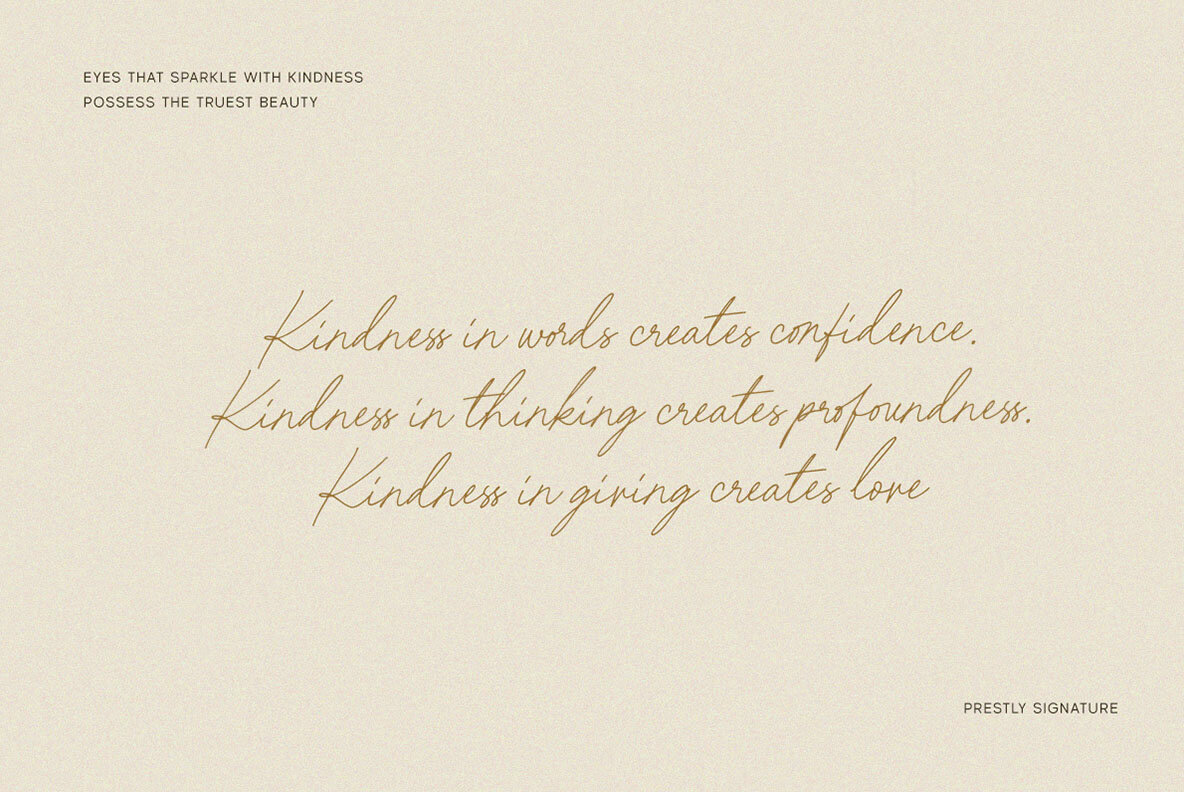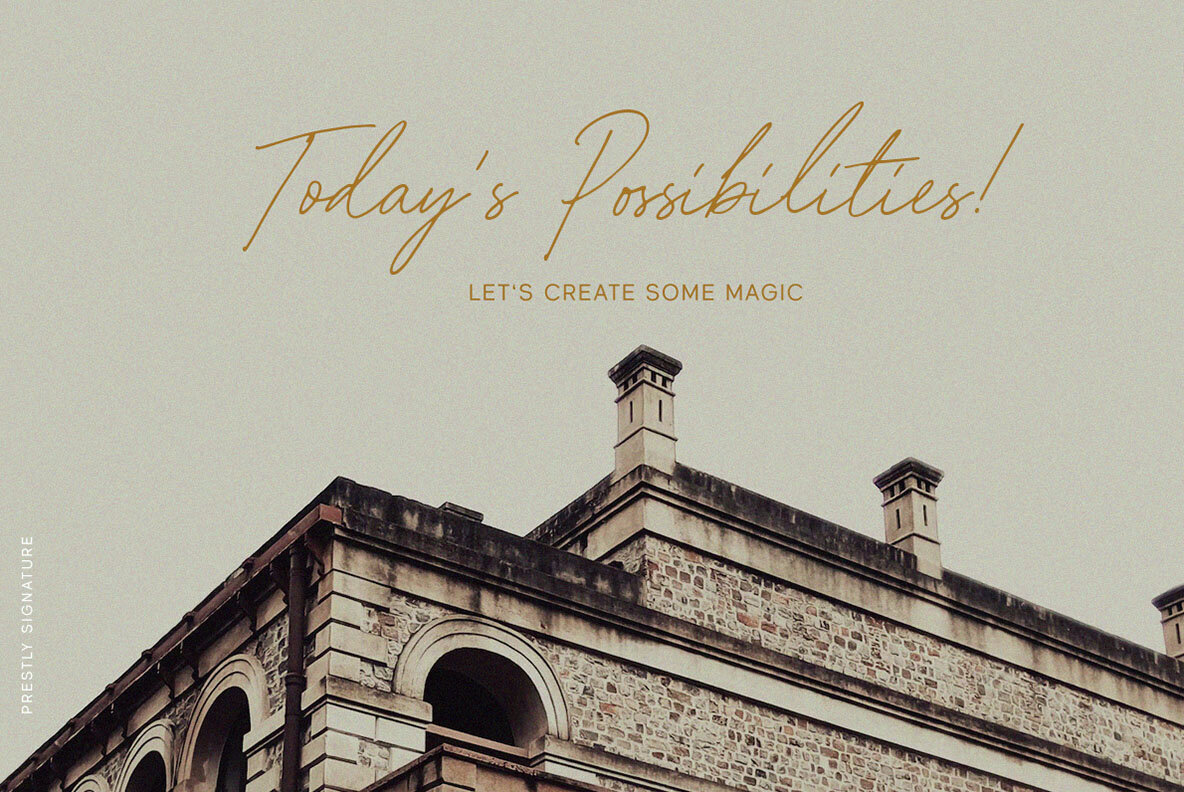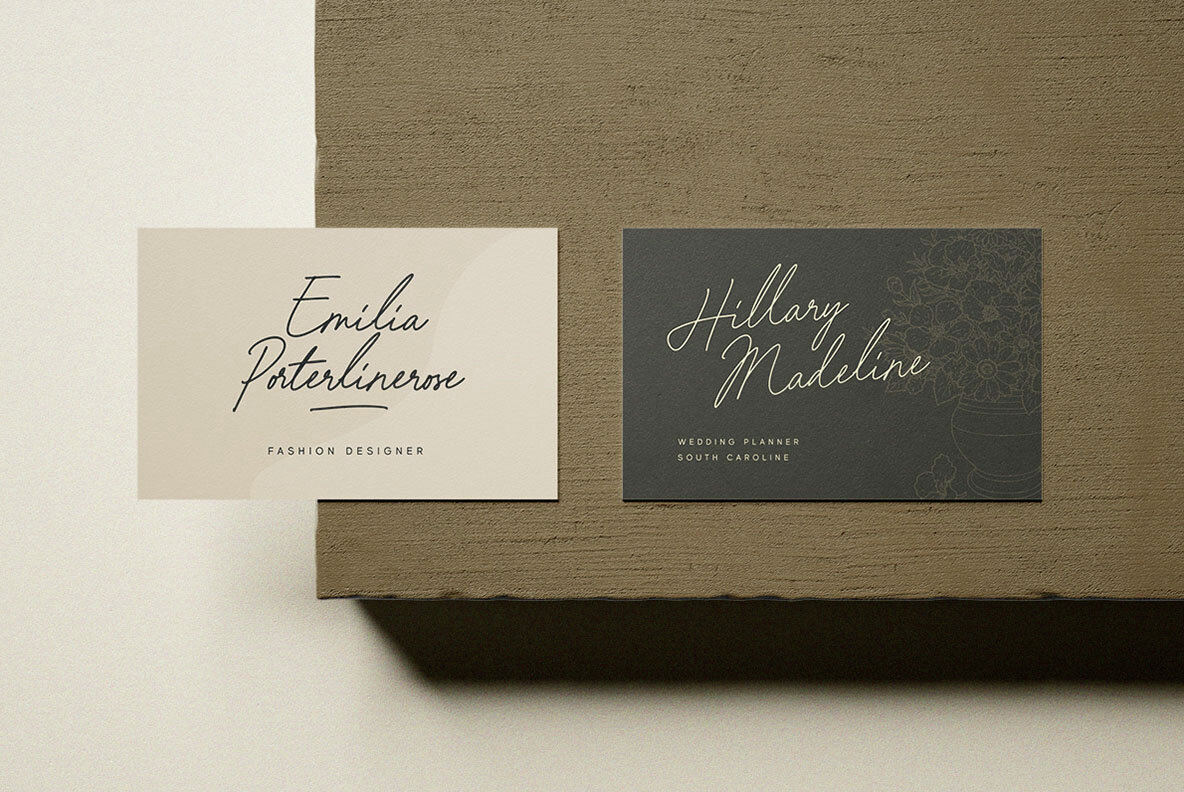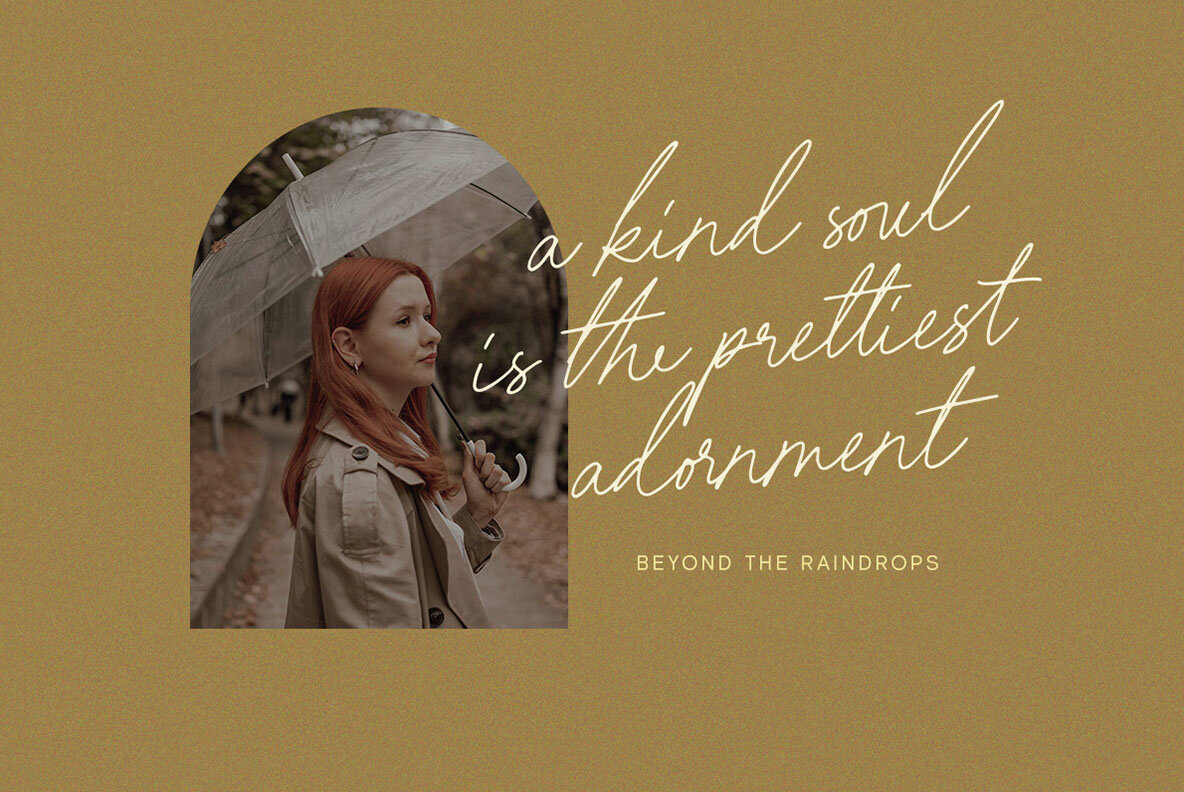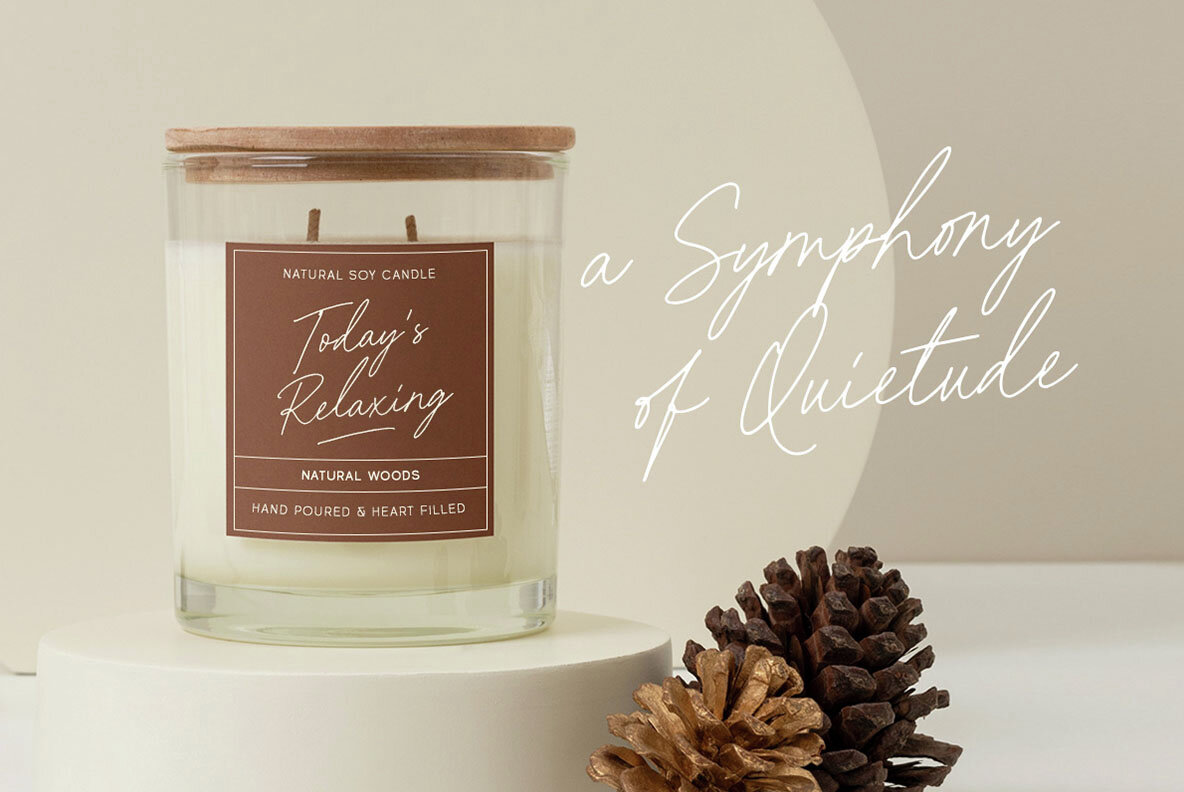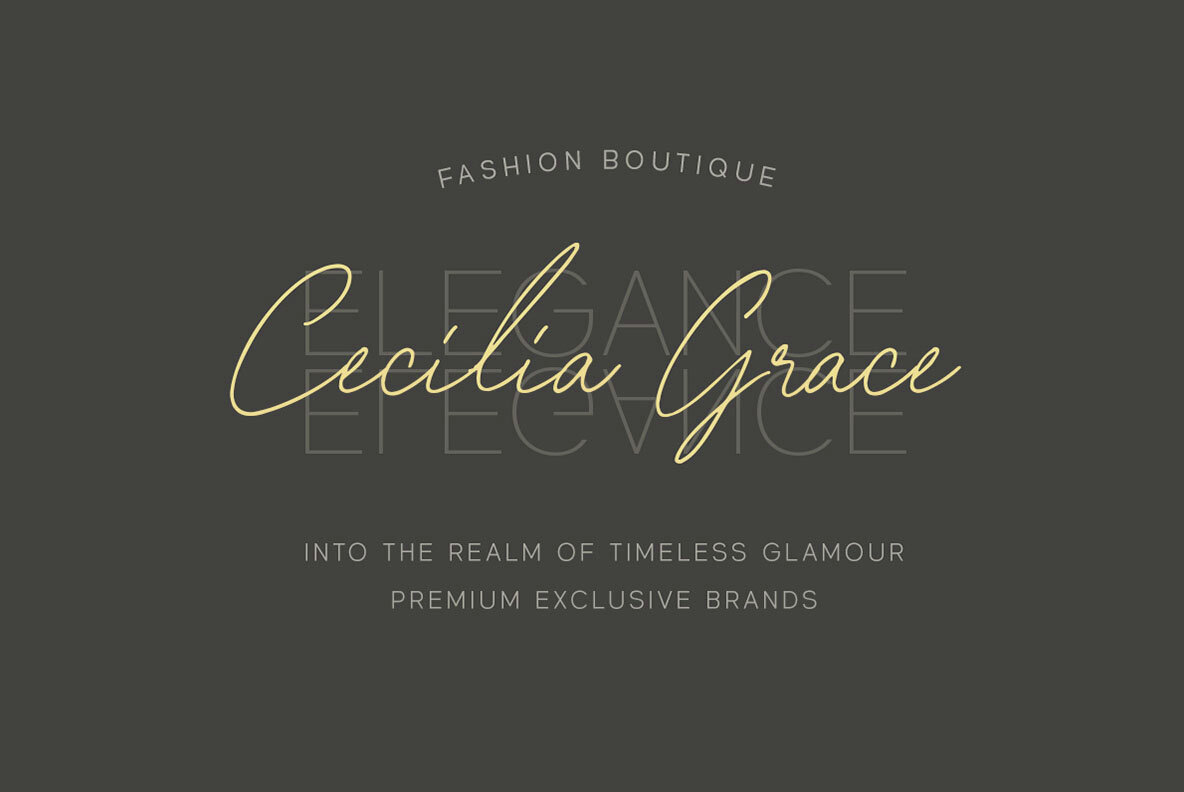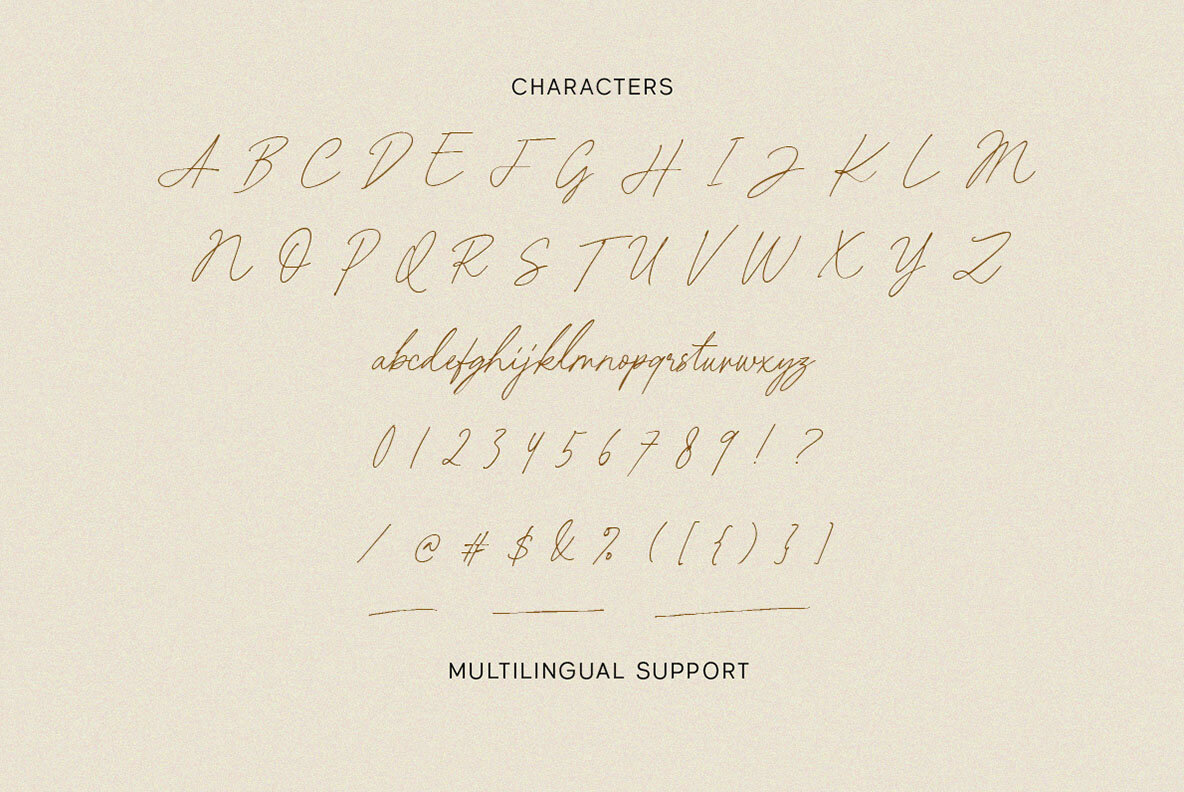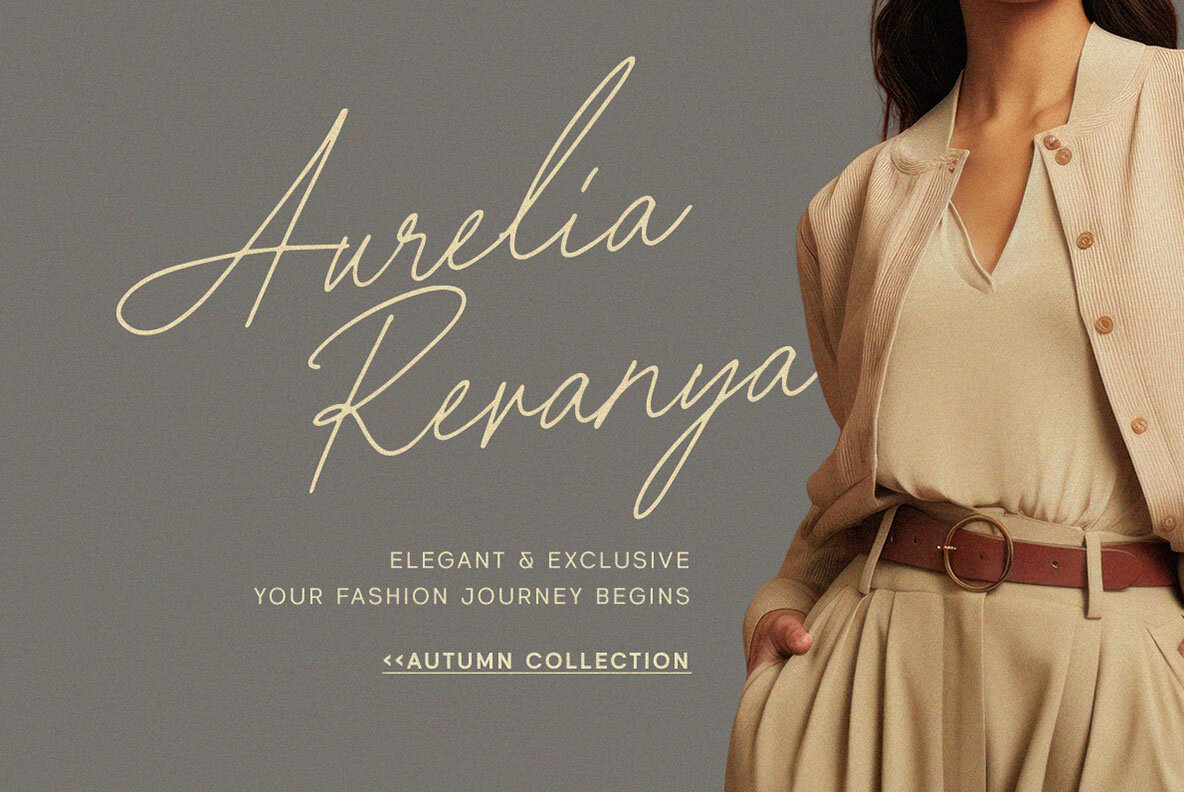
Prestly Signature Font
Prestly Signature offers a signature script that replicates manual handwriting with authenticity. Incorporating stylistic alternates, ligatures, and varied strokes, this font beautifully mimics real handwriting rather than mere typing, making it ideal for logos and formal documents. Whether it's for invitations, labels, magazines, or greeting cards, Prestly Signature brings elegance to any project, including packaging, fashion, stationery, and advertising. For optimal use of Prestly Signature's features, we recommend employing software that supports OpenType features and Glyphs panels, such as Adobe programs and Corel Draw, to access all glyph variations.Prestly Signature: Handwritten Script for Elegant Designs